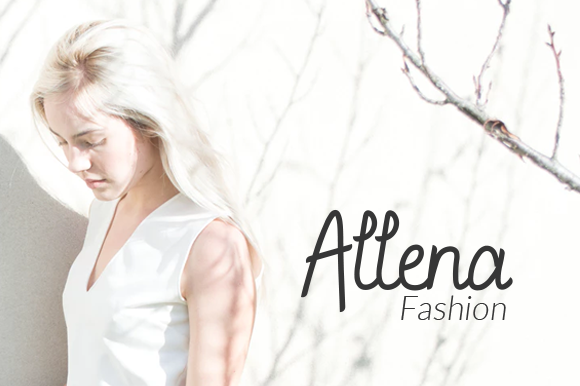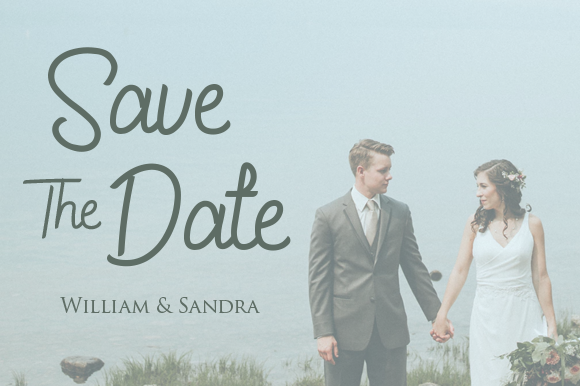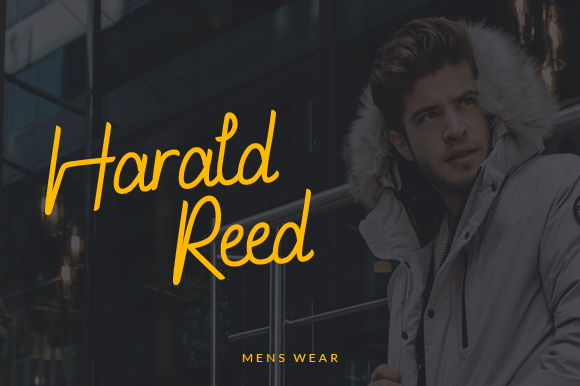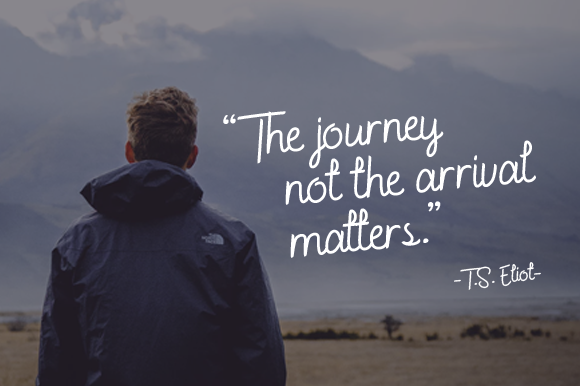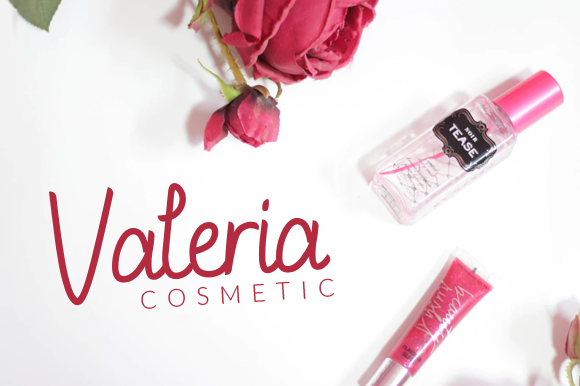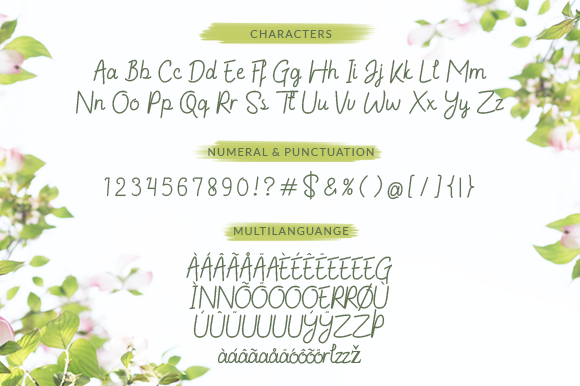
The Magic of December Font: A Designer’s New Best Friend
I’ll never forget the time I was working on a holiday card project for a client, and I just couldn’t find the right font to capture the warm, cozy feeling they wanted. The project was deadline-sensitive, and my usual go-to fonts just weren’t cutting it. That’s when I stumbled upon the December font, and let me tell you, it was love at first sight! 💕
The December font is a beautiful, simple script font that adds a personal touch to any design project. Its elegant, flowing lines make it perfect for greeting cards, branding, business cards, quotes, posters, and so much more! In this article, I’ll share my experience with the December font, including what I love about it, some practical tips on how to use it, and a few similar fonts you might enjoy.
- ✅ Elegant and simple script font that’s easy to read
- ✅ Highly versatile and can be used for a variety of design projects
- ✅ Works well in both digital and print formats
- ✅ OpenType features, including glyphs and stylistic alternates, for added creativity
- ⚠️ Limited character set, so it may not be suitable for languages with non-Latin scripts
- ⚠️ Some users may find the font too delicate or thin for certain design applications
If you love the December font, you might also enjoy these similar fonts:
- Lobster: A elegant, cursive script font with a sophisticated feel
- Pacifico: A beautiful, modern script font with a relaxed, beachy vibe
- Great Vibes: A fun, energetic script font with a playful personality
- Alex Brush: A lovely, handwritten script font with a whimsical feel
The Story Behind December Font: Designer Inspiration
The December font was designed with the intention of creating a simple, yet elegant script font that captures the warmth and coziness of the holiday season. While the actual design story is unclear, it’s easy to imagine a designer sitting by the fireplace, sipping hot cocoa, and pouring their heart into creating a font that’s both beautiful and functional.
| Font Name | December Font |
| Author | Trim Studio |
Q: What is the December font best used for?
A: The December font is highly versatile and can be used for a variety of design projects, including greeting cards, branding, business cards, quotes, posters, and more!
Q: Is the December font suitable for body text?
A: While the December font is beautiful, it’s best used for headlines, titles, and short paragraphs. Its delicate lines may not be suitable for long-form body text.